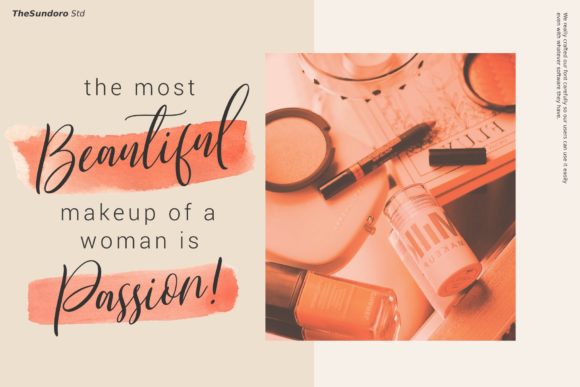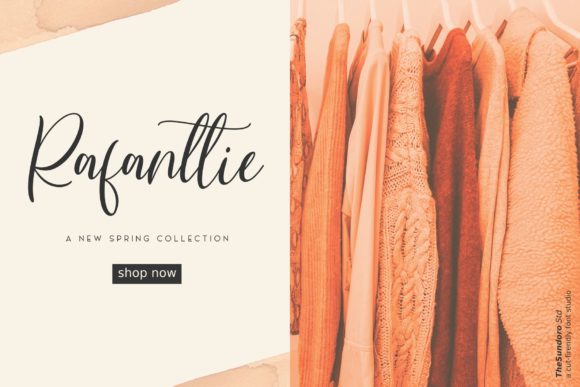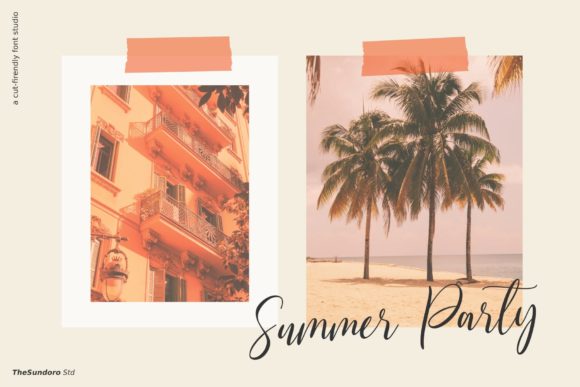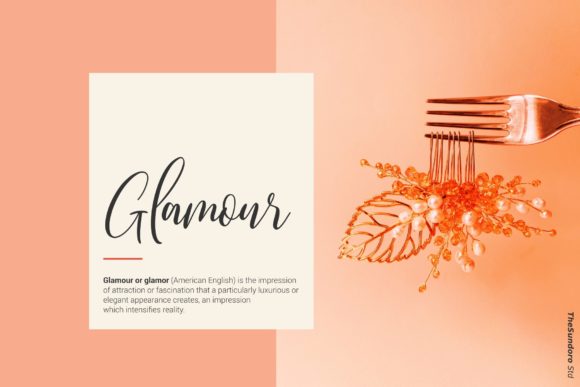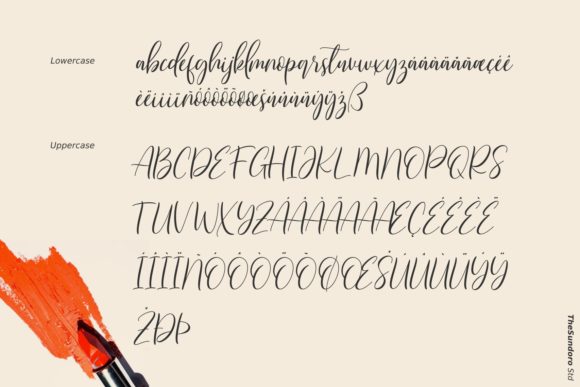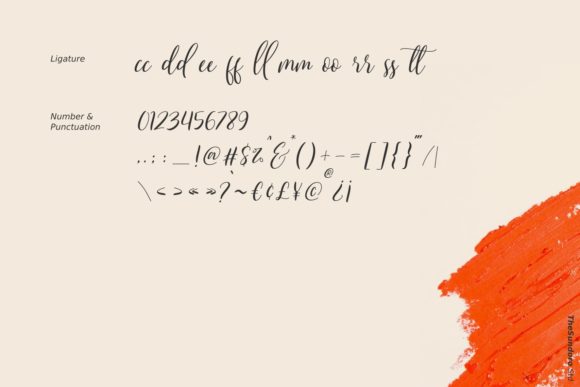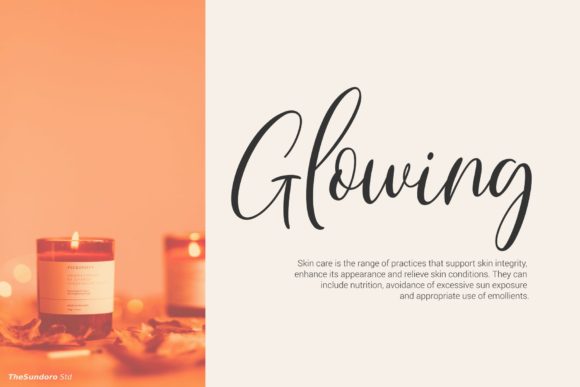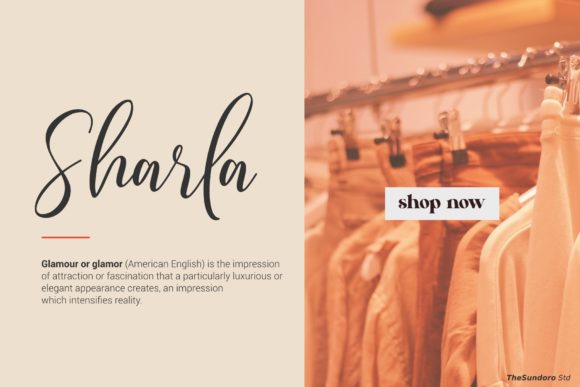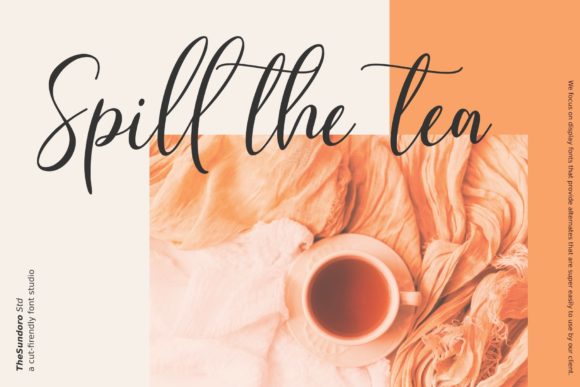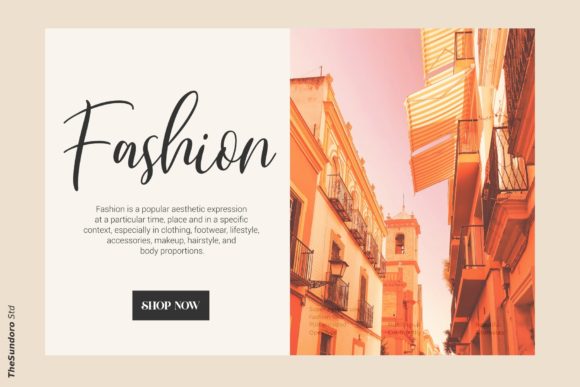
Qristalla Font
About Qristalla Font
“Qristalla” is a captivating and elegant handwritten font, exuding grace and sophistication. With its flowing and graceful style, “Qristalla” is the perfect choice for a wide range of design projects, elevating wedding invitations, thank you cards, quotes, greeting cards, logos, business cards, and more. Let’s explore what makes “Qristalla” a stunning font that adds a touch of timeless beauty to your designs:
Elegant and Flowing: The smooth and fluid lines of “Qristalla” create an air of effortless elegance. Its graceful strokes and curves give your designs a sense of refinement and charm, making it ideal for sophisticated and formal occasions.
Versatile Application: From wedding invitations to business branding, “Qristalla” seamlessly fits into a variety of design projects. Its versatility ensures that it can be used for both personal and professional purposes, bringing an air of elegance to every design.
Gorgeous Glyphs and Alternates: “Qristalla” is crafted with meticulous attention to detail, offering stunning glyphs and alternates that add depth and beauty to your designs. Accessing these extras through OpenType features allows you to customize and embellish your projects with a touch of luxury.
Varying Baseline: The varying baseline of “Qristalla” adds a handcrafted charm, giving your designs a unique and personalized touch. This feature brings warmth and authenticity to your creations.
Timeless Appeal: “Qristalla” boasts a classic and timeless aesthetic that transcends trends. Its timeless appeal ensures that it can be used for various themes and design styles, resonating with a wide audience.
Create Memorable Designs: Embrace the elegance and flowing nature of “Qristalla” to create designs that leave a lasting impression. The font’s sophistication and grace will captivate your audience, making your creations truly memorable.
Whether you’re designing elegant wedding invitations, heartfelt thank you cards, inspirational quotes, professional branding materials, or any other project that requires a touch of handwritten elegance, “Qristalla” is the perfect choice. Its enchanting and graceful style elevates your designs, leaving a lasting impact on your audience. Embrace the timeless beauty of “Qristalla” to infuse your creations with elegance and sophistication, making them truly extraordinary.